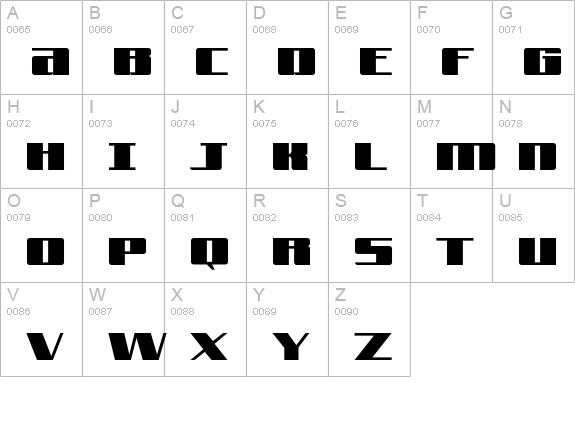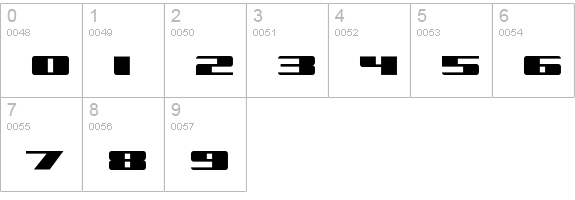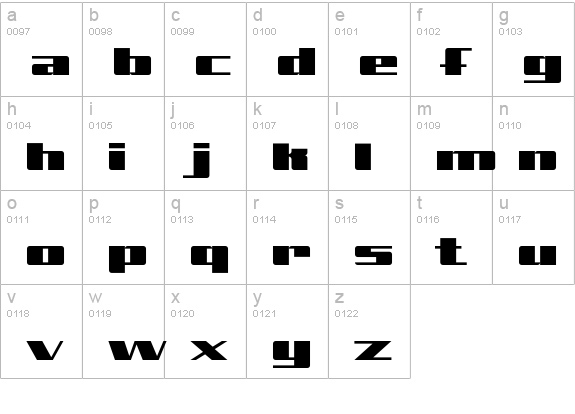
FreeLine-Normal is the standard, neutral variant in the FreeLine typeface family \xE2\x80\x94 well suited to general body text, paragraphs, and standard typographic work.
Introducing FreeLine-Normal font, a versatile typeface that exudes modernity and sophistication. This sleek and stylish font is perfect for a wide range of design projects, from branding to editorial layouts. With its clean lines and balanced proportions, FreeLine-Normal adds a touch of elegance to any design. What sets FreeLine-Normal apart is not just its aesthetic appeal, but also the fact that it is completely free to use. Yes, you read that right - this high-quality font is freely available to download at FontsMarket.com. So go ahead and elevate your designs with FreeLine-Normal, the perfect blend of form and function that won't cost you a penny.